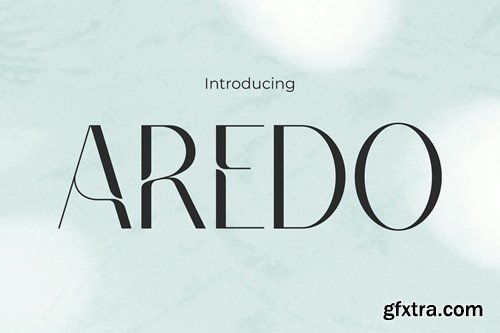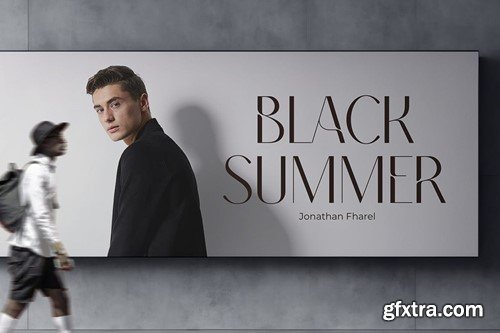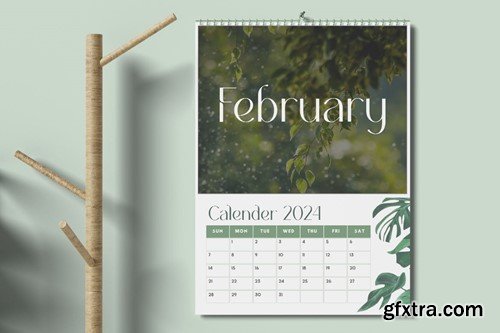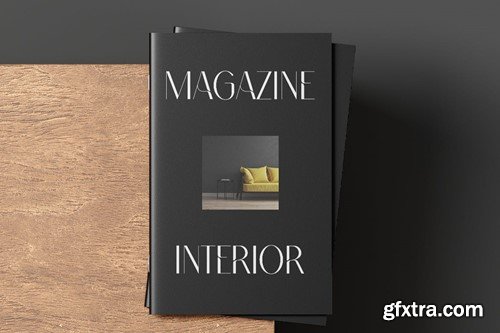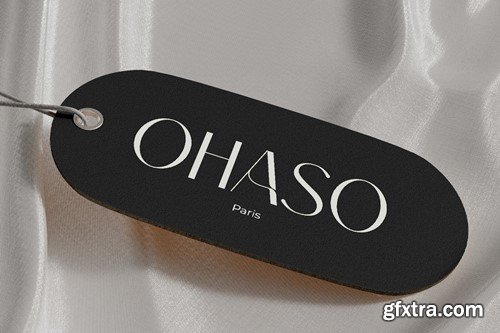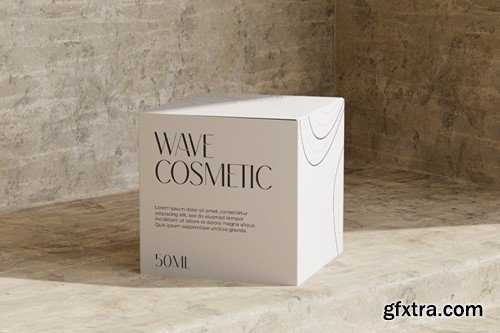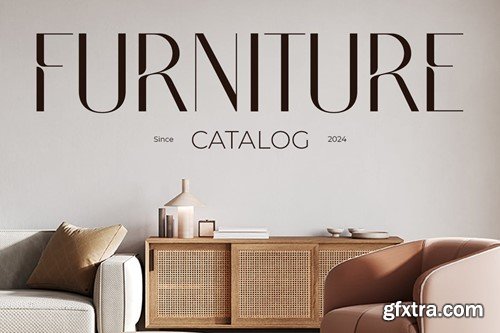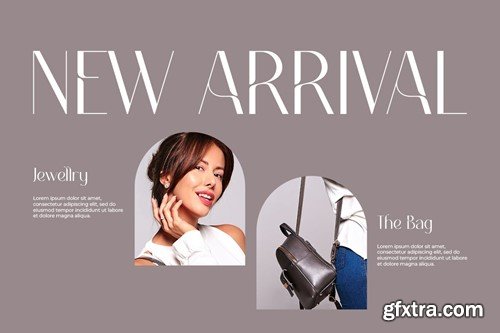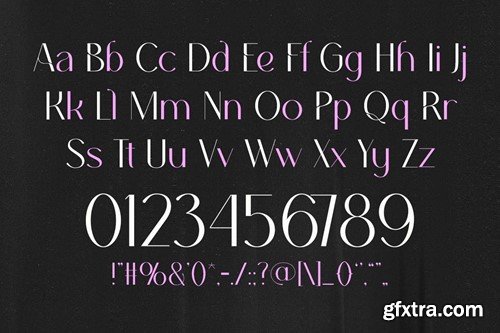
阿德罗 - 精致优雅现代字体 3878X7H
Aredo is a modern sans-serif font that epitomizes luxury and elegance. Its clean lines and sophisticated form make it perfect for high-end branding and design projects that require a touch of class. Aredo is especially suited for creating distinctive logos that convey a luxurious brand image. Its sleek simplicity enhances quotes with an air of refinement and transforms invitations into announcements of exclusive events. For posters and greetings, Aredo's minimalist elegance ensures your messages stand out with understated sophistication. This font is also ideal for packaging that demands a premium feel, branding that aims to impress, and covers that catch the eye. For events, headlines, and advertising campaigns, Aredo delivers a powerful impact, ensuring that your projects look exquisite and resonate with an audience expecting the highest quality.